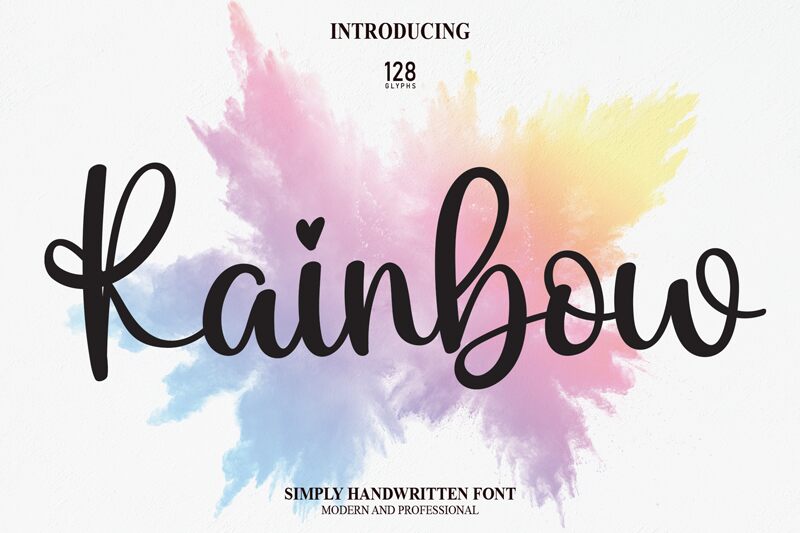
Rainbow
Rainbow, the mesmerizing creation by scratchones, is a captivating handwritten font that effortlessly adds an artistic touch to any project. Its semi-light weight exudes a delicate charm, making it perfect for elegant invitations, heartfelt love letters, or whimsical greeting cards. This font type is also ideal for crafting eye-catching social media graphics and blog headers that demand attention. With Rainbow's unique style and versatility, it breathes life into branding materials like logos and packaging designs. Let your imagination run wild as you infuse Rainbow into diverse projects that crave a touch of creativity.
The latest style letters are perfect for wall displays, wedding invitations, social media post logos, advertisements, product packaging, product designs, labels, photography, watermarks, invitations, stationery, and any project that requires taste handwriting.